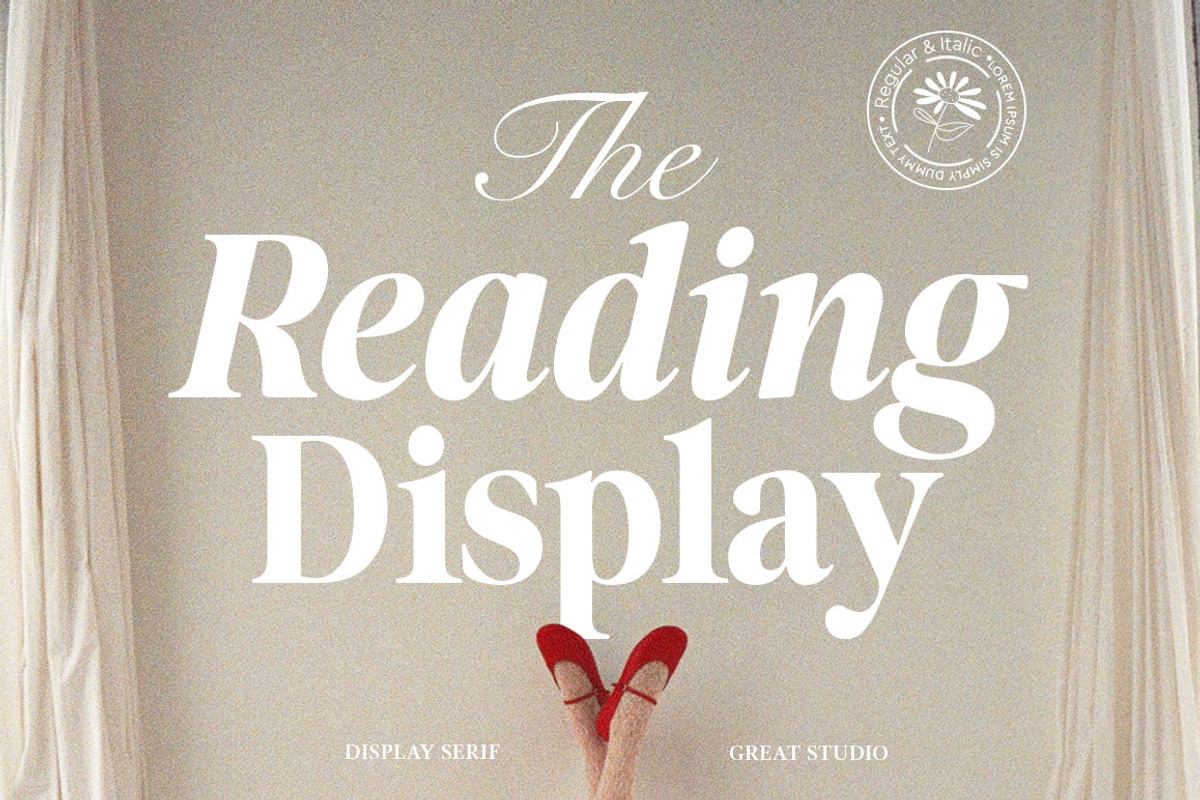
The Reading Display Font Free Download is a bold and contemporary typeface designed to make a statement. With its strong, clean lines and unique design, this font is perfect for headlines, posters, logos, websites, and any project that demands attention-grabbing typography. Its modern aesthetic ensures that it stands out while maintaining readability.
Whether you're creating a bold brand identity, designing a modern publication, or building eye-catching digital content, The Reading Display Font brings strength and clarity to your typography. It’s the ideal choice for designers looking for a modern, impactful font.